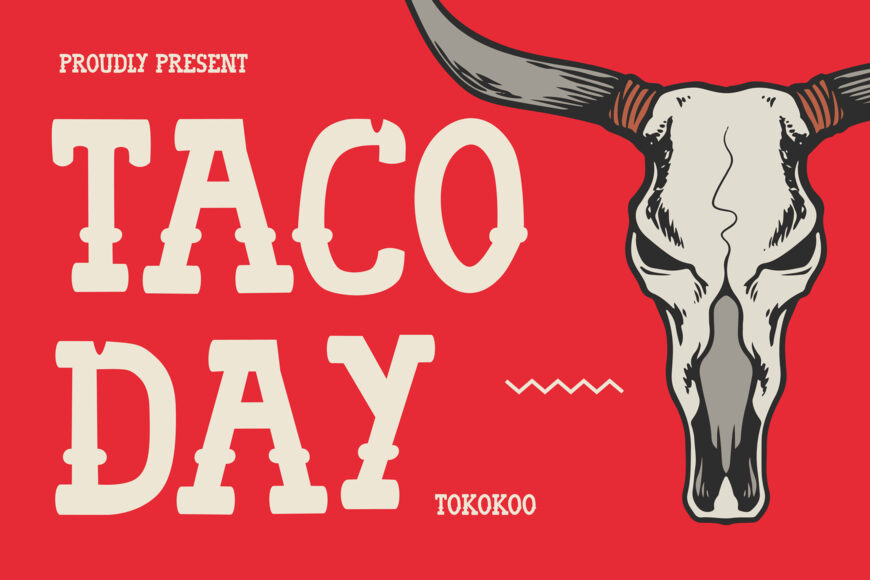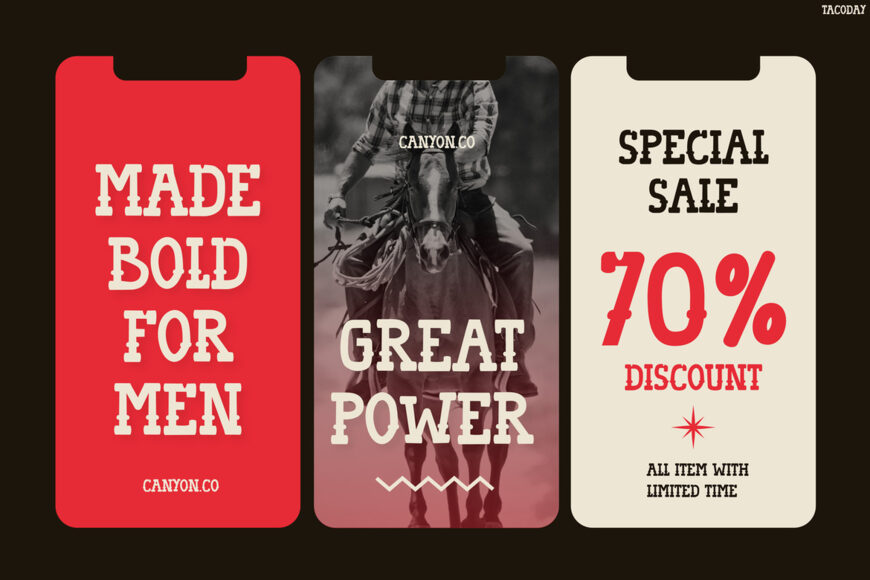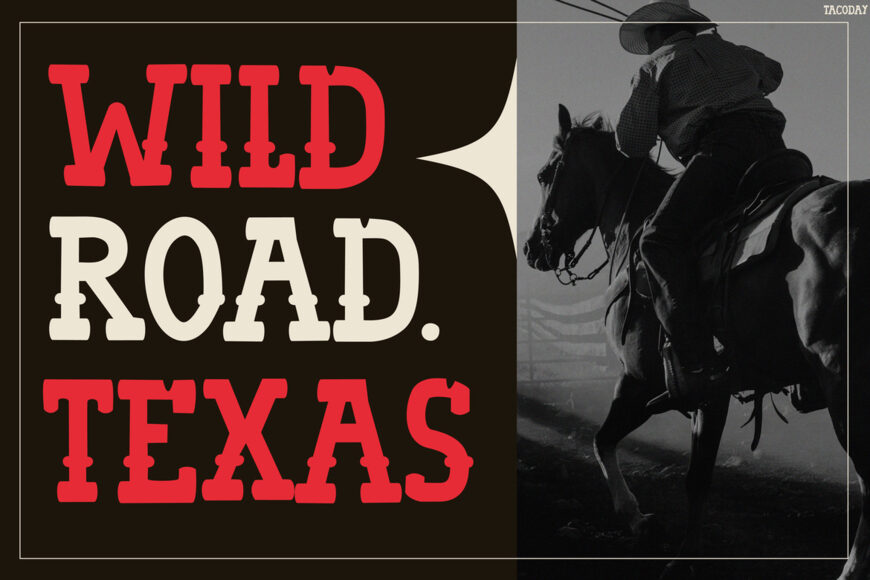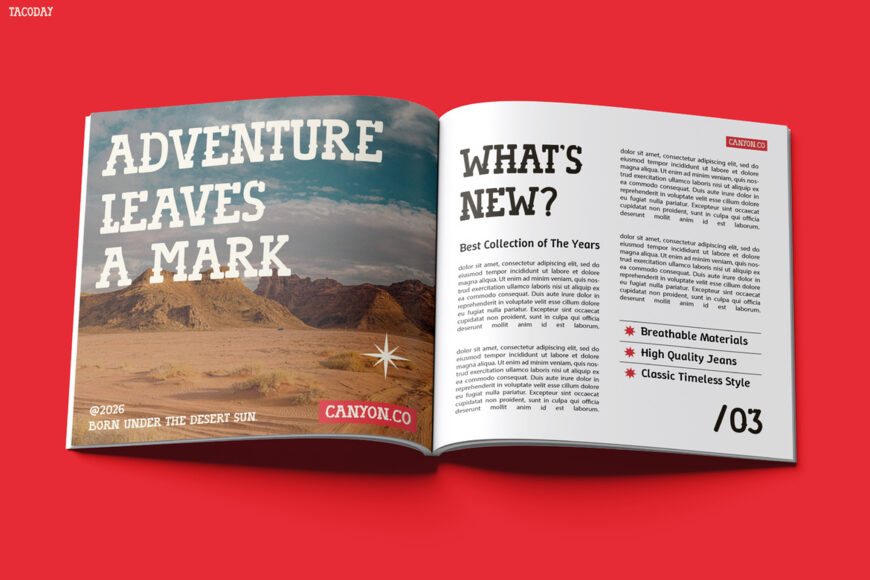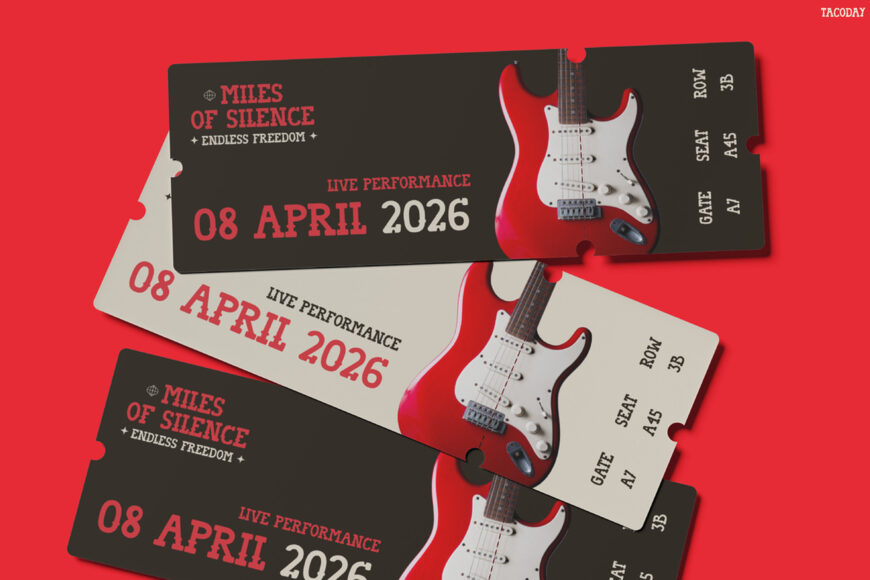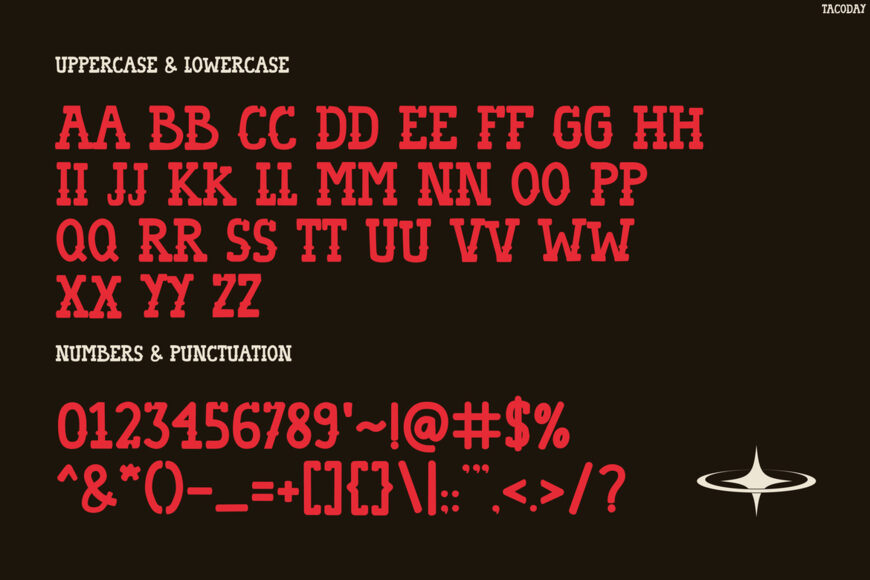
Tacoday brings the fearless spirit of the Wild West into a bold display typeface filled with authentic frontier character. From the very first glance, its rugged slab-inspired letterforms create a strong and unforgettable visual presence.
The handcrafted details add vintage charm while preserving excellent readability. As a result, every headline feels powerful, confident, and full of personality. At the same time, its balanced structure keeps layouts clean and easy to read. Even better, Tacoday works beautifully across both print and digital projects, giving every design a timeless Western atmosphere.